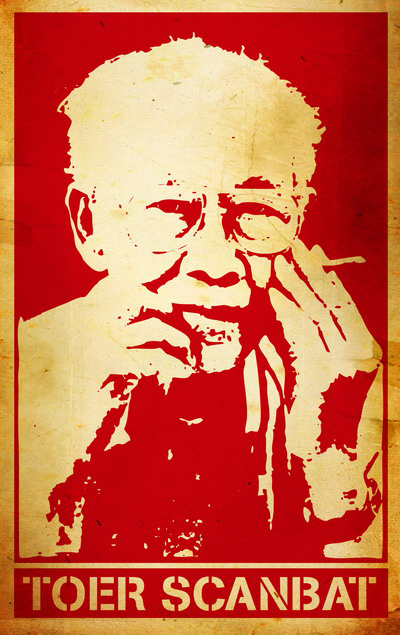
Font name: | Toer |
Categories | Dingbats, Heads |
Author: | Didik Pratikno |
Toer is Scanbats of potrait Pramudya Ananta Toer. Pramudya Ananta Toer was an Indonesian author of novels, short stories, essays, polemic and histories of his homeland and its people. His works span the colonial period, Indonesia's struggle for independence, its occupation by Japan during the Second World War, as well as the post-colonial authoritarian regimes of Sukarno and Suharto, and are infused with personal and national history. The Dutch Government imprisoned him from 1947 to 1949. Pramoedya's writings sometimes fell out of favor with the colonial and later the authoritarian native governments in power. Pramoedya faced censorship in Indonesia during the pre-reformation era despite the fact that he was well known outside Indonesia. The Dutch imprisoned him from 1947 to 1949 during the War of Independence (1945-1949). During the changeover (coup) to the Suharto regime Pramoedya was caught up in the shifting tides of political change and power struggles in Indonesia. Suharto had him imprisoned from 1969 to 1979 on the Molukken island of Buru and branded him a Communist. He was seen as a holdover from the previous regime (even though he had struggled with the former regime (Sukarno). It was on the Island of Buru that he composed his most famous work, the Buru Quartet. Not permitted access to writing materials, he recited the story orally to other prisoners before it was written down and smuggled out. Pramoedya opposed some policies of founding President Sukarno as well as the New Order regime of Suharto, Sukarno's successor. Political criticisms were often subtle in his writing, although he was outspoken against colonialism, racism and corruption of the Indonesian new Government. During the many years in which he suffered imprisonment and house arrest (in Jakarta after his imprisonment on Buru), he became a cause célèbre for advocates of human rights and freedom of expression. |